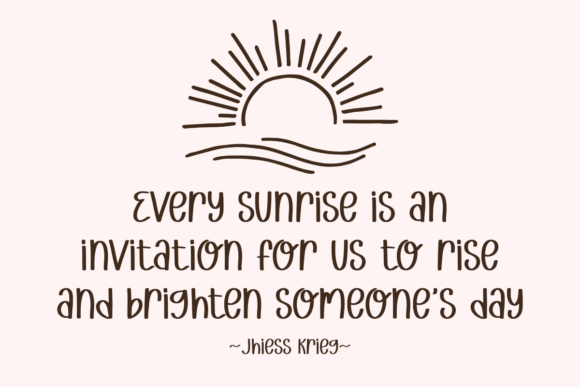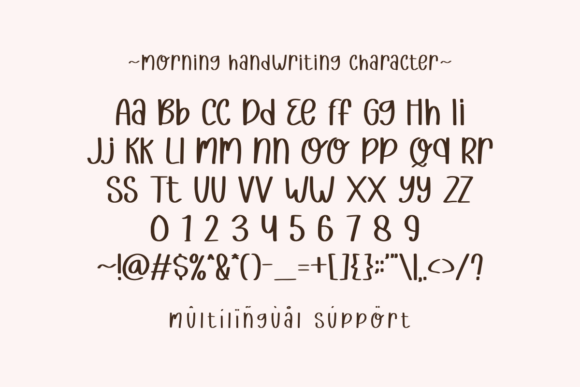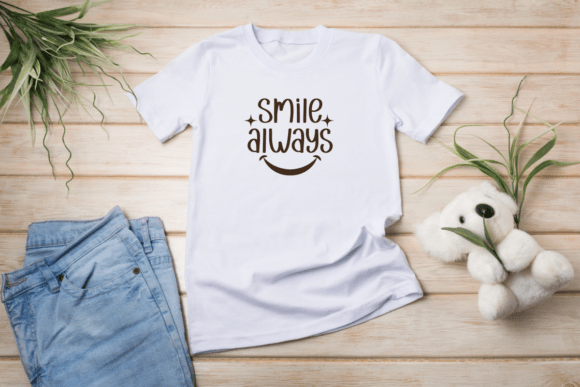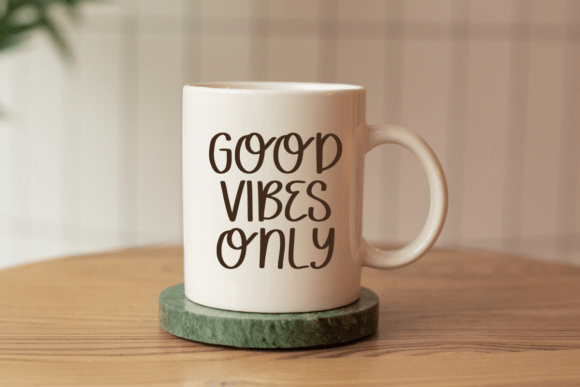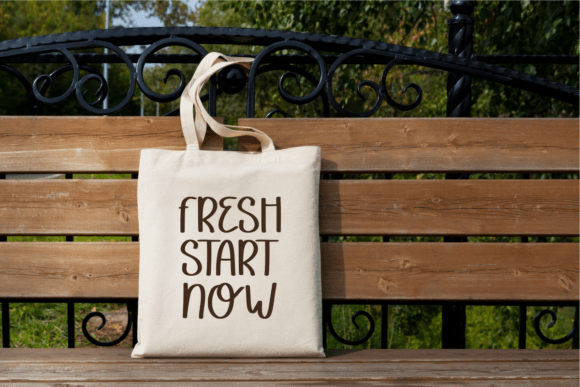
Introduction to Morning Handwriting Font
Morning Handwriting is a charming handwriting font with a clean yet whimsical vibe.
Featuring smooth curves and a hand-drawn feel, this font is perfect for romantic designs, wedding invitations, heartfelt branding, and elegant social media graphics Its versatile style pairs a modern aesthetic with a touch of playful warmth, making it ideal for creative and love-inspired projects.
Key Features of Morning Handwriting Font
Why Choose Morning Handwriting Font?